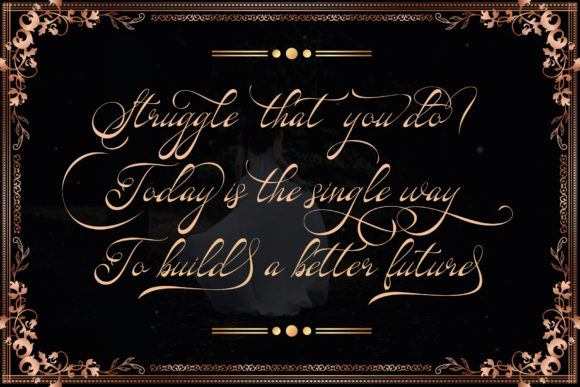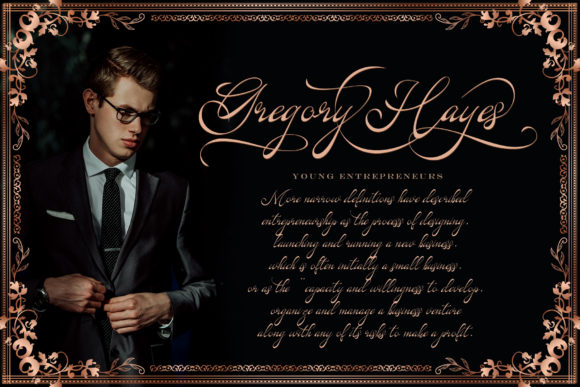
Muliya Tat Font
db-ku.com - Script & Handwritten -- Muliya Tat is a masterpiece defined by elegance and good taste. This handwritten font is PUA encoded which means you can access all of the glyphs and swashes with ease! It looks gorgeous on wedding invitations, thank you cards, quotes, greeting cards, logos, business cards and every other design which needs a lovely touch.